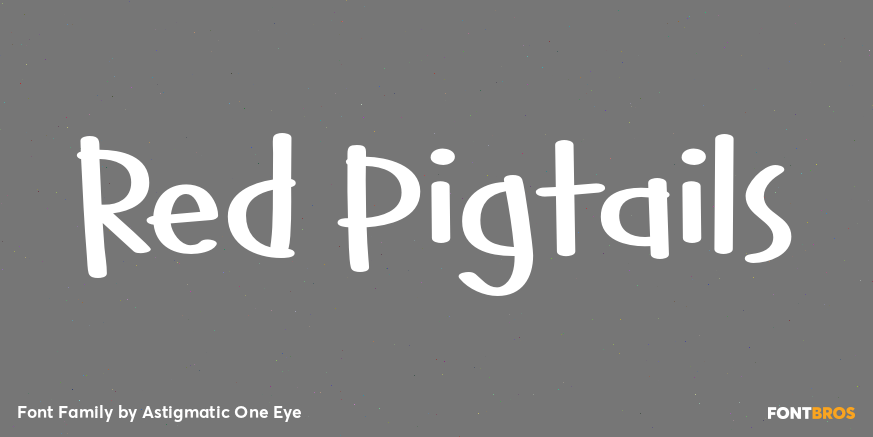
HomeFont BrosHandwrittenRed Pigtails HandwrittenWacky Red Pigtails FacebookXPinterestWhatsApp 1 of 1 About Red Pigtails is a fun and spunky yet highly legible typeface which can evoke playfulness in any design.  DOWNLOAD NOW People also explored Mithin Font Holland Font Ohmayblue Font Bachelor Font Moontells Font Bully Gatte Font Choc Bubbles Font Stroke Font Chole Brise Font 389 0 TagsRed Pigtails Font Previous articleRestraining OrderNext articleTaco Tuesday LEAVE A REPLY Cancel reply Comment: Please enter your comment! Name:* Please enter your name here Email:* You have entered an incorrect email address! Please enter your email address here Website: Save my name, email, and website in this browser for the next time I comment. Personal Use Free Rumaniaya Personal Use Free Read more about this font Vanity Personal Use Free Read more about this font Styledeep Personal Use Free Read more about this font Sweet Cake Personal Use Free Read more about this font BLOG 5 Fonts That Will Dominate Design Trends in 2026 5 Fonts for 2026 That Will Dominate Design Trends Typography plays a critical role in visual communication, and as we look ahead to 2026, it’s... Elegant Wedding Invitation Fonts – Handwritten & Script Fonts Best Fonts for T-Shirt Design – Top 2025 Picks Top 10 Handwritten Fonts That Elevate Your Designs